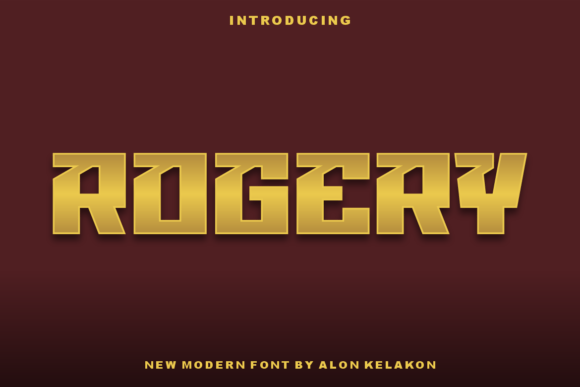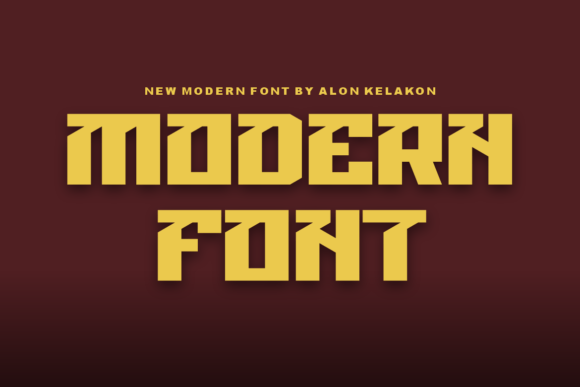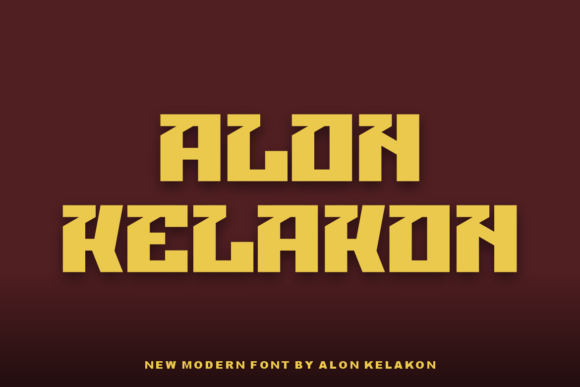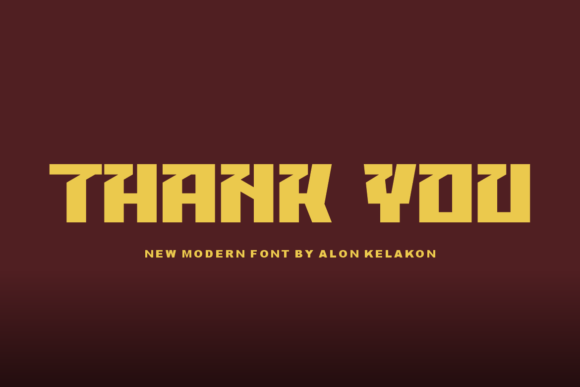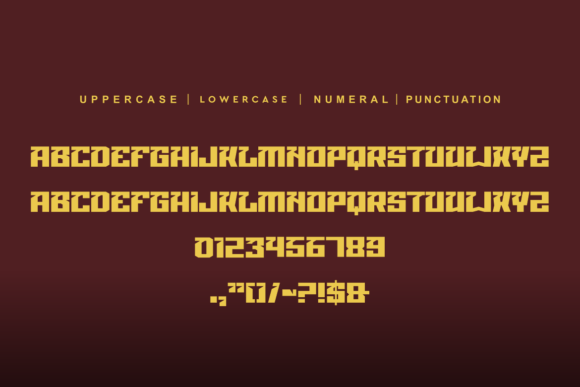
Rogery
Rogery: A Unique Slab Serif Font
Rogery is a unique slab serif font that’s ready to use for many different design projects. From labeling and clothing to movie scenes, posters, titles, gigs, album covers, logos, and much more, this versatile typeface fits many creative needs.
Key Features of Rogery
• Unique Design: Offers a one-of-a-kind look that stands out.
• Versatile Style: Works well across many different uses.
• Slab Serif Structure: Features bold, block-like serifs typical of slab fonts[3].
• Ready to Use: Perfect for immediate application in various projects.
Best Uses for Rogery
Thanks to its unique style, Rogery works especially well for:
When using Rogery in your designs, keep these tips in mind:
• Try it for headlines or short text to show off its unique style.
• Test different sizes to find the perfect fit for your project.
• Mix with simpler fonts for body text to create contrast.
• Use its versatility to make your designs stand out.
To sum up, Rogery is an excellent choice for designers seeking a unique slab serif font that can work across many different projects. Its versatile nature makes it perfect for various creative needs. Whether you’re designing clothing, creating movie titles, or crafting album covers, Rogery offers the perfect mix of uniqueness and flexibility.
Furthermore, Rogery’s distinctive design allows it to shine in many different settings. For instance, from product labels to gig posters, this font can lift your projects with its special style. Also, its unique yet readable look works well in designs that aim to grab attention while staying clear and legible.
In conclusion, Rogery truly stands out in the world of slab serif typography. Its ability to work well across so many different uses shows how flexible it can be. Therefore, for those wanting to add a unique touch to their work, Rogery can enhance any design with its distinctive style. Ultimately, it’s perfect for designers aiming to make a strong, memorable impact across many different kinds of creative projects.